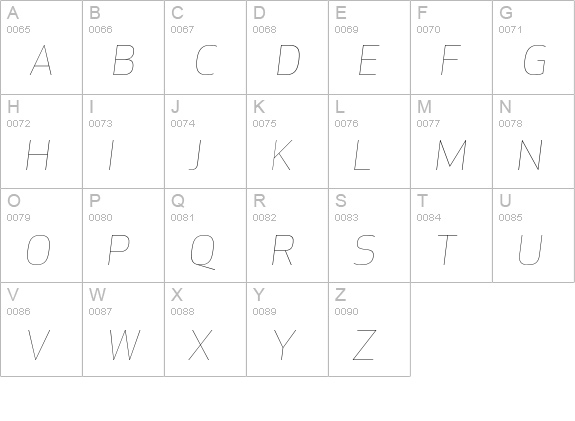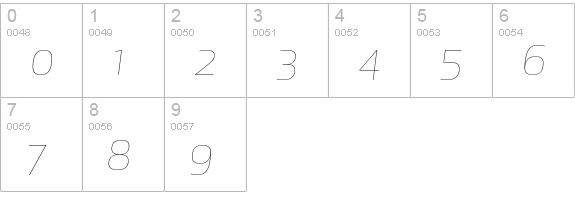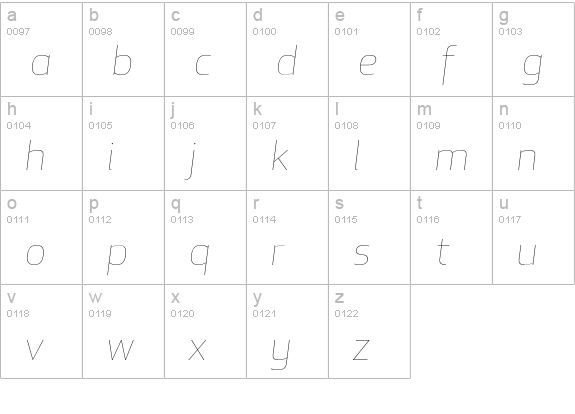
ApexNew-ThinItalic font is a sleek and elegant typeface that exudes sophistication and modernity. Its thin and italic design adds a touch of style to any text or design project. Perfect for creating a contemporary and refined look, this font is versatile and eye-catching. The best part? ApexNew-ThinItalic font is available for free download at FontsMarket.com. Whether you're designing a website, creating a logo, or working on a print project, this font is sure to make a statement. Don't miss out on the opportunity to enhance your work with this stunning typeface. Download it now and start elevating your designs with ApexNew-ThinItalic font.